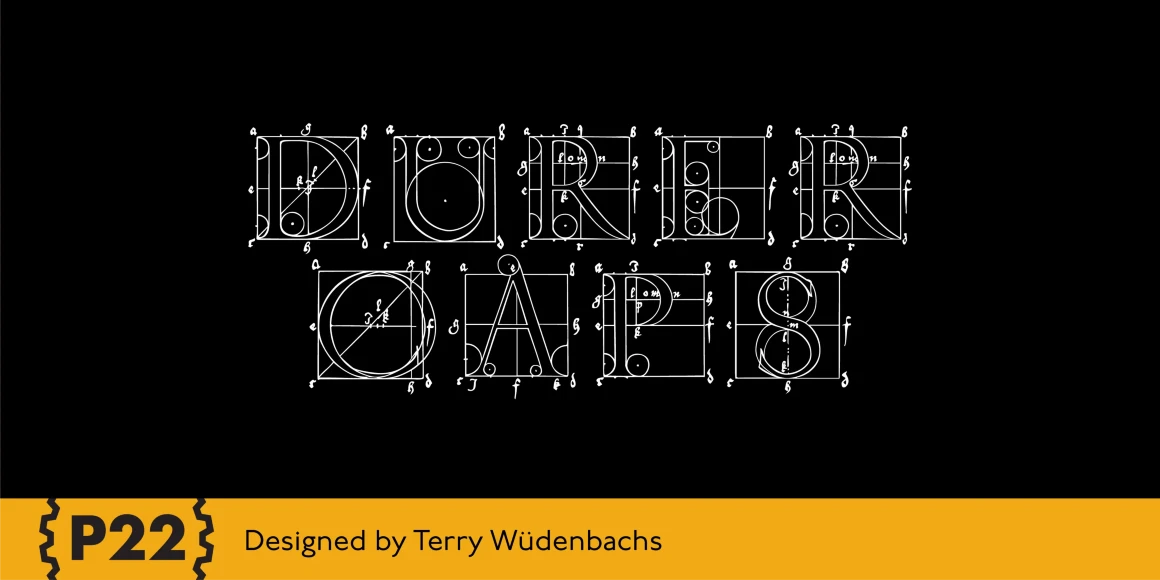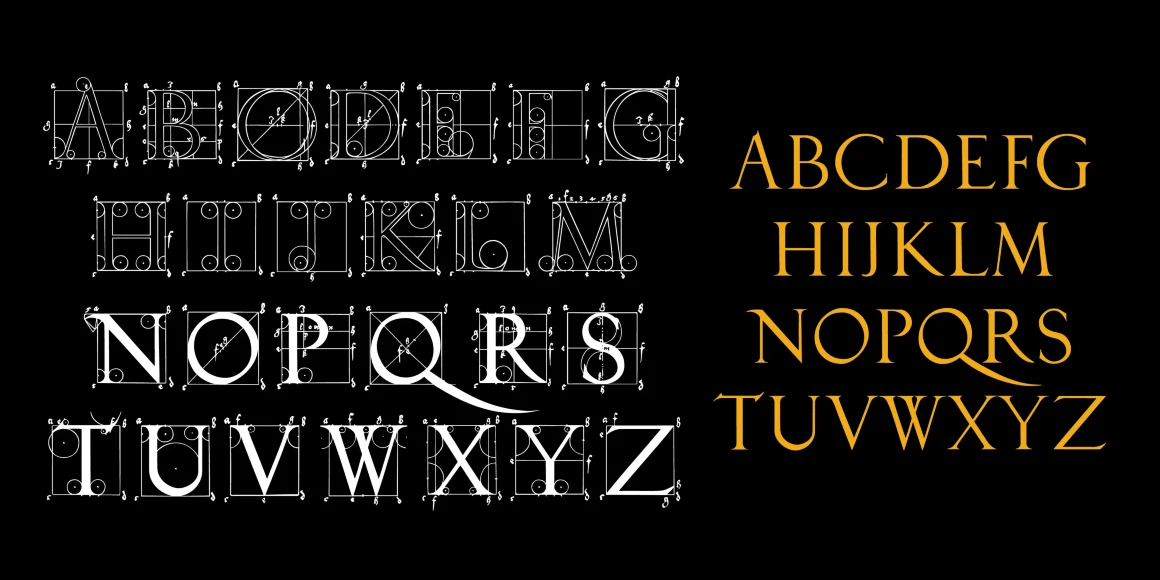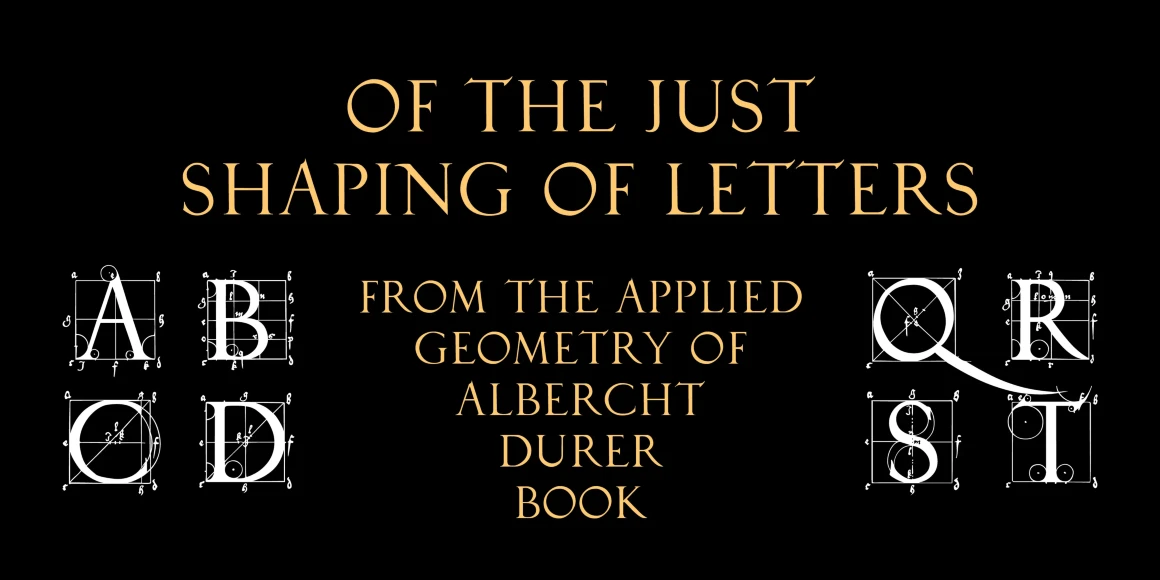
Durer Caps
Durer Caps is three fonts in one. Based on master artist Albrecht Dürer’s 1525 geometric construction of Roman capitals, this font features A to Z as caps only. But there are three variations included: filled construction, unfilled construction, and the solid fill letters by themselves.The user can layer the unfilled and the solid fill letters to do two-color overlay effects.
Designed by Terry Wüdenbachs